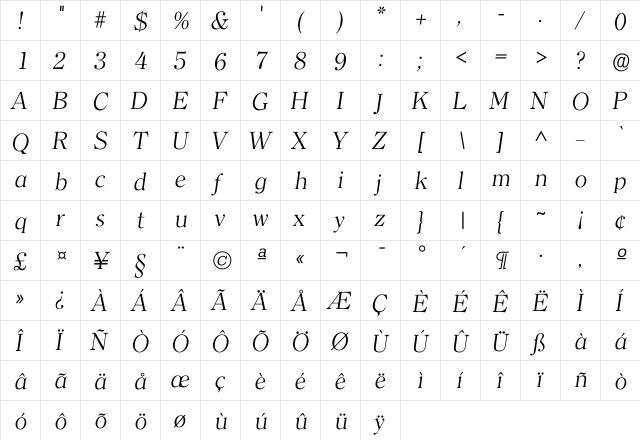
Iclerface Light
Design Context for Iclerface Typeface
Iclerface is a composed and adaptable typeface that performs quietly and consistently across a wide range of design contexts. The delicate stroke weight brings airiness and refinement to layouts.